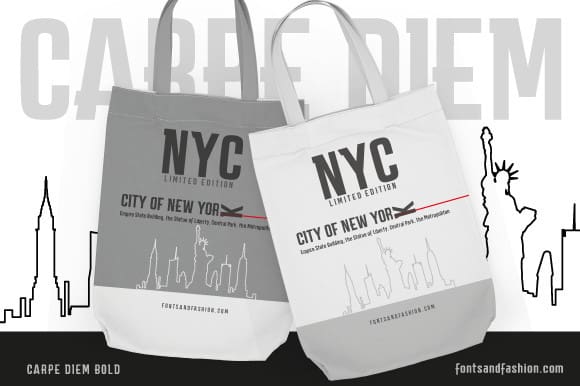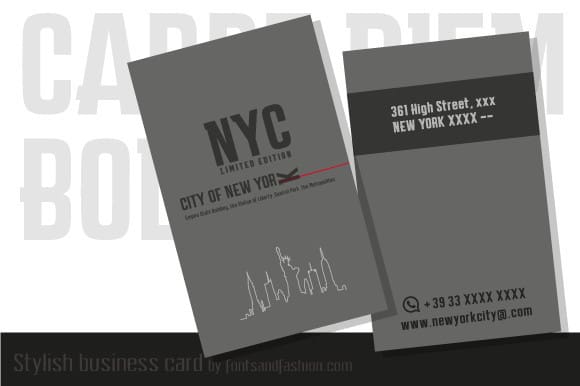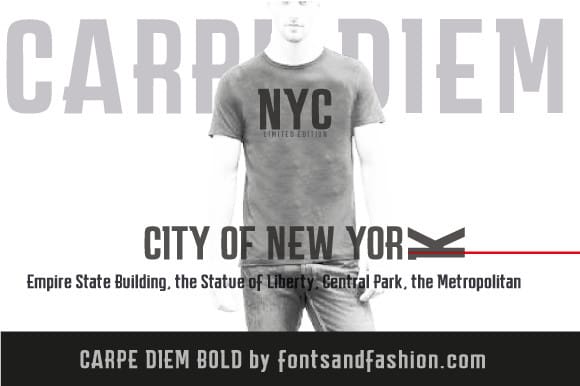
CARPE DIEM TYPEFACE
Carpe Diem Font is a modern and linear font composed of 422 Glyphs, with a strong character, and is highly readable. Easily suits every kind of design, giving a firm visual impact to your creations. CarpeDiem Bold takes part of the Carpe Diem Family, and it’s the soul of the other different fonts’ weight.
In general terms, we can say that fonts of this family, called “base”, alone or mixed together, are perfect for a great result.